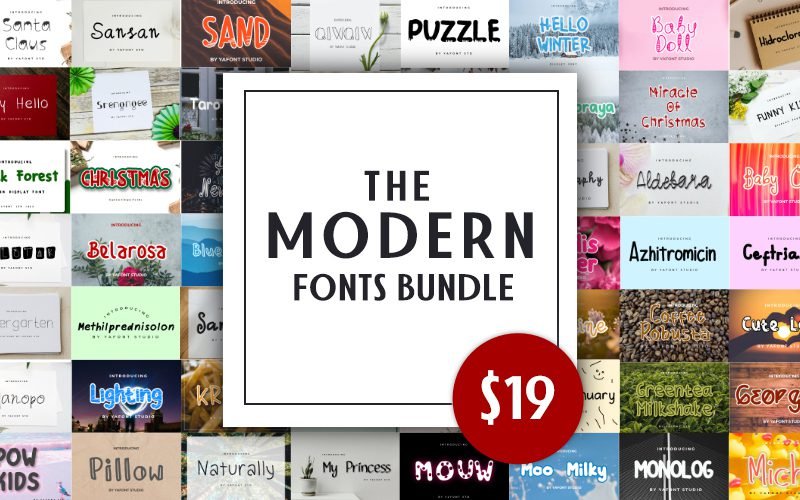
60 Distinctive Modern Font Bundle!
Sharp, sleek, bold, professional, and stylish… 60 Modern Font Bundle to amp up your next design project!
These fonts are distinctly corporate but not aggressive. You will get a perfect balance of bold and subtle fonts. These fonts can be used for social media posts, flyers, videos, presentations and print materials.
Here’s A List Of 60 Modern Font Stored Inside This Bundle:
Aldebara font
Amoxan font
Azhitromicin font
Baby Doll font
Balotak font
Belarosa font
Black Forest font
Blue Ocean font
Bougenville Flowers font
Bubble Boba font
Ceftriaxon font
Cheerful Year font
Christmas font
Coffee Robusta font
Cute Love font
Emerald font
Everybody font
Friendly font
Funny Kids font
Gendis Flower font
Greentea Milkshake font
Happy New Year font
Hello Christmas font
Hello Winter font
Hellow January font
Hidrocloroquin font
Honeymoon font
Jons font
Kindergarten font
Krriiukk font
Lighting font
Manopo font
Mennuah font
Methilprednisolon font
Michy font
Miracle Of Christmas font
Monolog font
Moo Milky font
Mouw font
My Princess font
Naturally font
North Star font
Photography font
Pillow font
Pow Kids font
Puzzle font
Qiwqiw font
Sand font
Sansan font
Sansullin font
Santa Claus font
Say Hello font
Srengngee font
Stricker font
Sunshine font
Taro Flowers font
Tremor font
Upnormal font
Welcome Santa font
Winter Soraya font